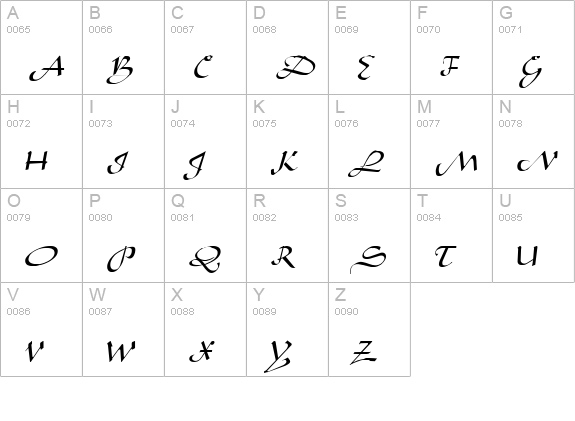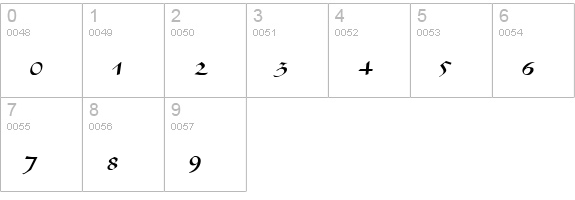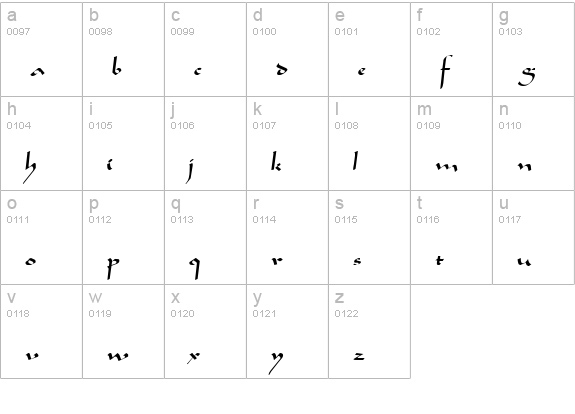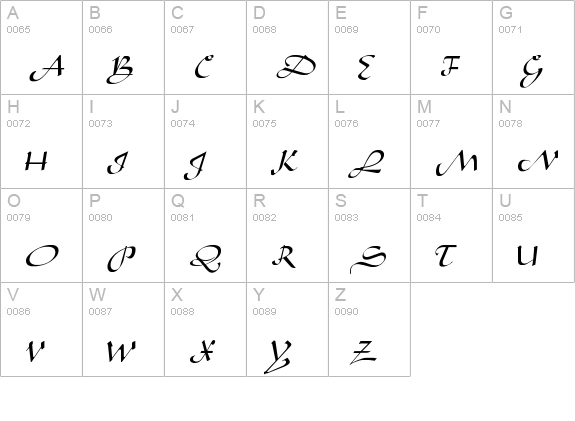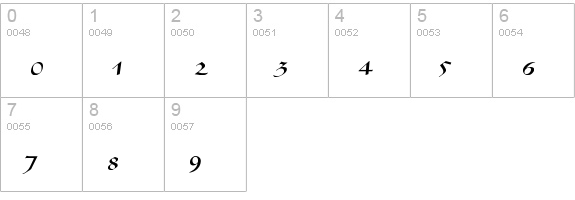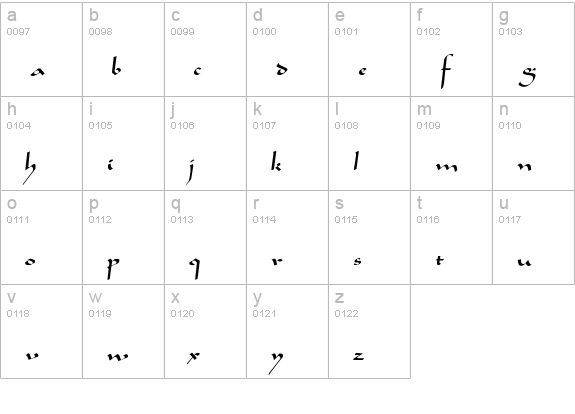
MochaExtended Normal Font Details
MochaExtended Normal is the standard, neutral variant in the MochaExtended typeface family \xE2\x80\x94 well suited to general body text, paragraphs, and standard typographic work.
MochaExtended Normal font is a versatile and elegant typeface that exudes sophistication and modernity. With its sleek lines and subtle curves, this font is perfect for a wide range of design projects, from branding to editorial design. The MochaExtended Normal font is free to download at FontsMarket.com, making it easily accessible for designers and creators looking to elevate their work with a touch of class. Its timeless appeal and readability make it a must-have addition to any designer's font collection. Let MochaExtended Normal font elevate your next project with its effortless style and sophistication.